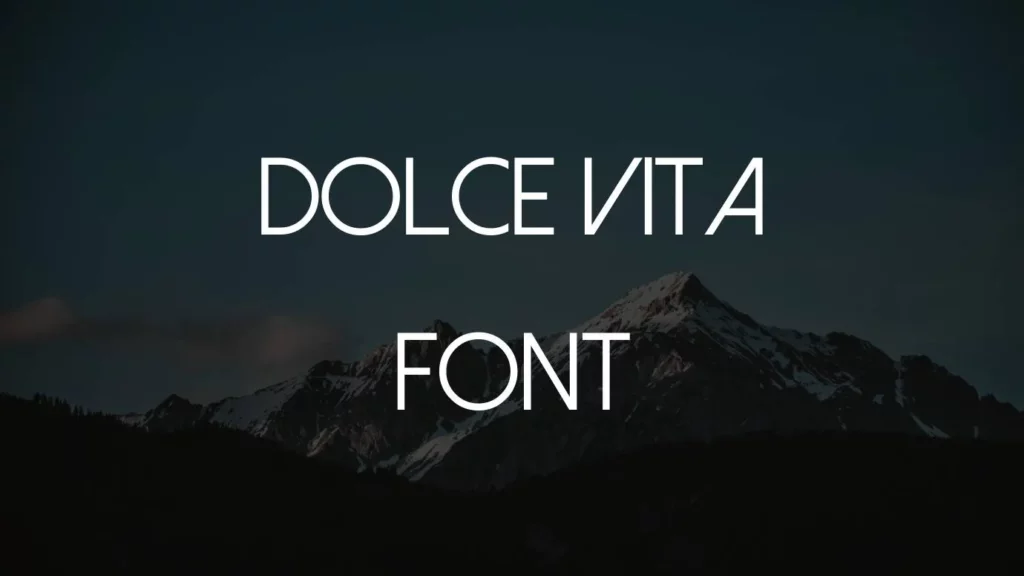
Here is one of the decorative typefaces Dolce Vita Font that belongs to the Sans-Serif font family. It has a very unique appearance with conjunction and extraordinary features. It has fine thin lines with great spacing. It comes in different styles and designs. It is preferable for printing and heading projects. It has been used in many noticeable places like CSS and Adobe Photoshop.
This classy font was created by the famous font designer named Michael Muranaka. He designed many other famous graphics designs. This traditional font comes in capital letters, small letters, glyphs, symbols, digits, icons, and 0 to 9 numbers.
This Dolce Vita Font comes in incredible 161 characters and many appealing glyphs. You can pair it with other helvetica font for modern combinations like Qurany Font. It supports many international languages. Similar Font To Dolce Vita Font
What is the Dolce Vita Font?
It is a fancy typeface that belongs to the sans-serif font family. It comes in three weights and various styles. You can use it in different kinds of windows.
Who designed the Dolce Vita Font?
This classy font was created by the famous font designer named Michael Muranaka. He designed many other famous graphics designs.